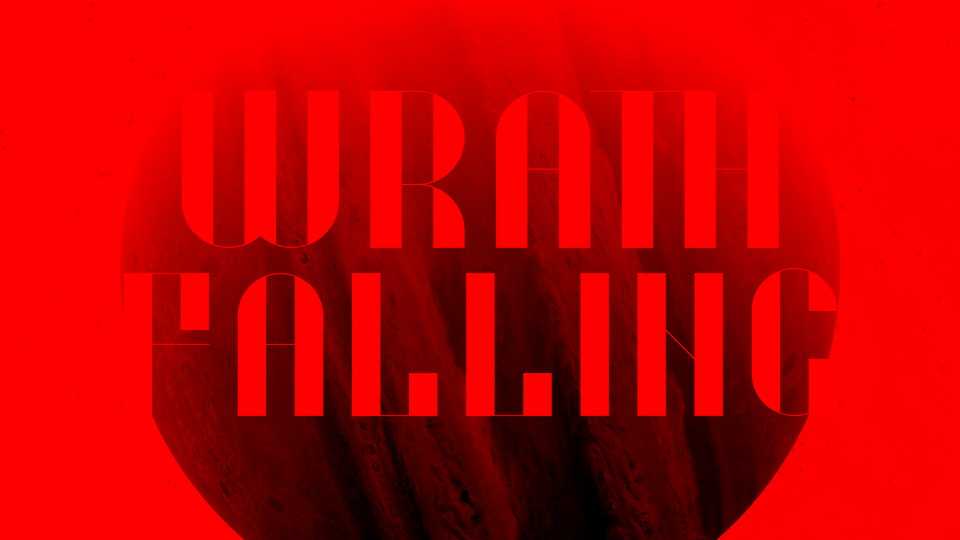
Download Wrath Falling font, an artistic decorative typeface that enhances the visual sense of the vertical sections and diminishes the visual sense of the rest of the font. Wrath Falling font contains 83 characters, including Latin and numbers.